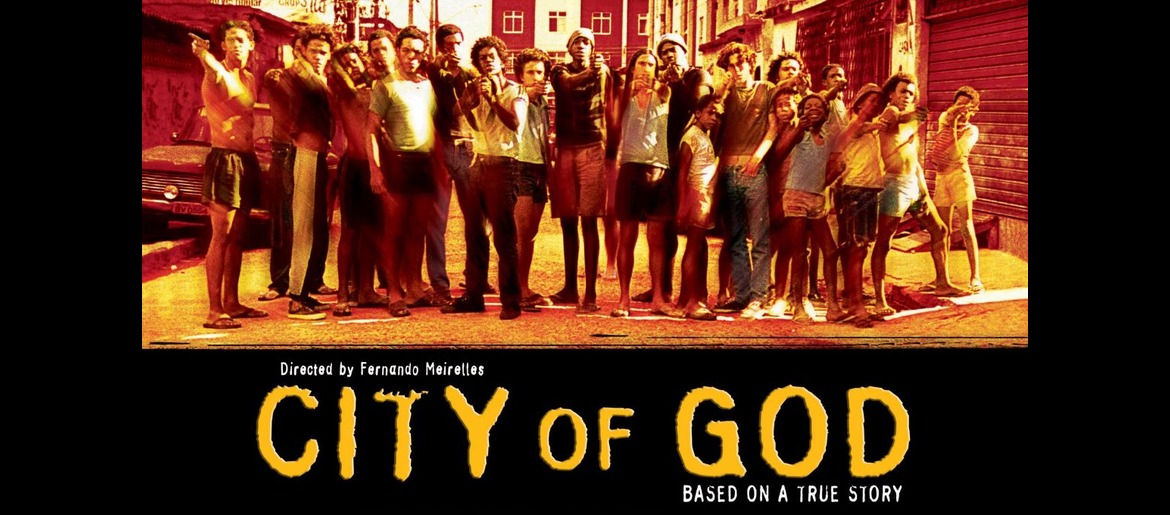
City of God Font embodies the raw intensity and urban grit that defined one of cinema’s most powerful crime dramas. This typography channels the chaotic energy of Rio’s streets through its weathered, impactful aesthetic.
The movie’s title design strongly resembles FF Stamp Gothic Std, created by Just van Rossum and released by FontFont. Its rough, industrial style perfectly reflects the intensity of the film’s narrative.
City Of God Font
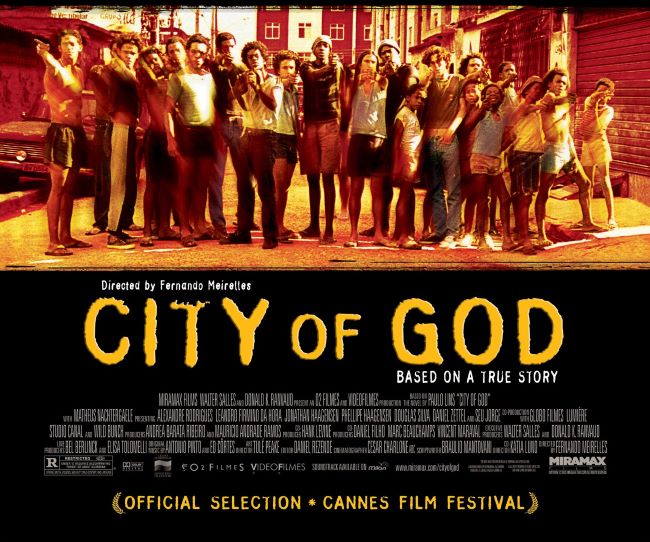
The City of God Font works brilliantly for projects demanding authenticity and edge—street art designs, urban branding, documentary titles, or any work requiring unfiltered character. Its distressed appearance tells stories before words even form, making the City of God Font essential for designers seeking genuine visual impact.